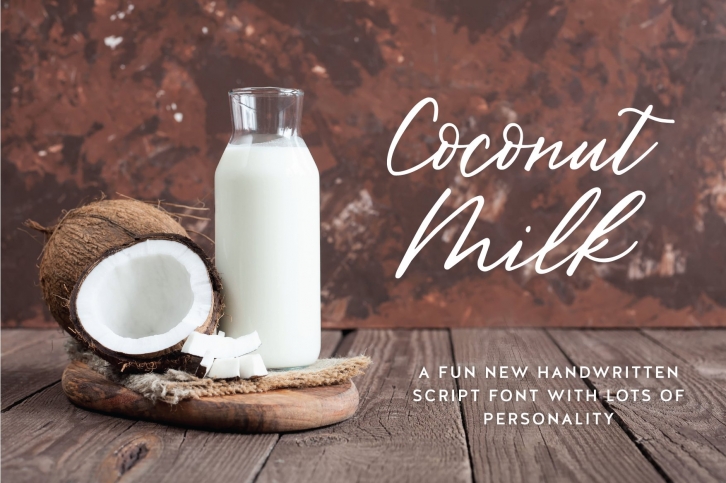
Introducing Coconut Milk Script! A fun new handwritten font with lots of personality :)
Coconut Milk Script contains multilingual support with accented characters for international Western European users. As well as a special double "tt" ligature and stylistic alternative.